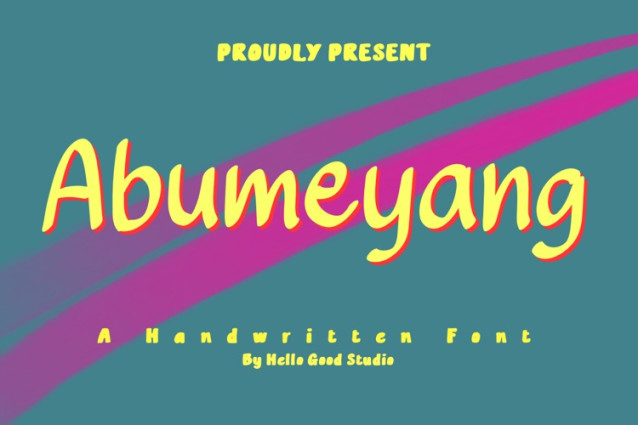
Abumeyang Font
Abumeyang Font is a simple and friendly handwritten font. Its natural and unique style makes it incredibly fitting to a large pool of designs. The only limit is your imagination!